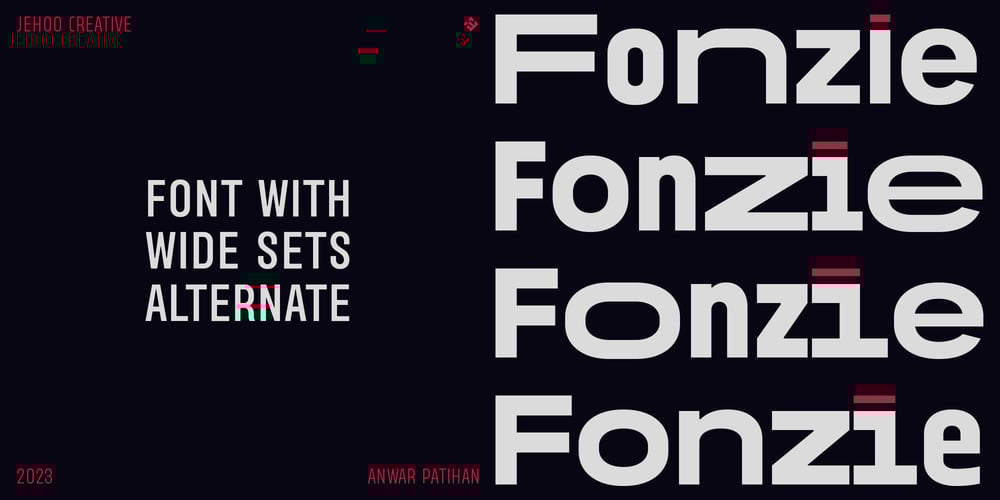
Fonzie Font Family was designed by Anwar Patihan and published by Jehoo Creative. Fonzie contains 19 styles and family package options. Fonzie redefining versatility. With four charming styles seamlessly blended together, it offers the perfect balance between tradition and innovation. Fonzie’s basic style embodies timeless elegance with a Space-saving Condensed form with a modern twist. The SS01 explores futuristic aesthetics with a geometric style, or embraces the sophistication and form of the Extended with the SS02 features, and for the SS03 it is added for those of you who like the extreme extended style that is now a trend.